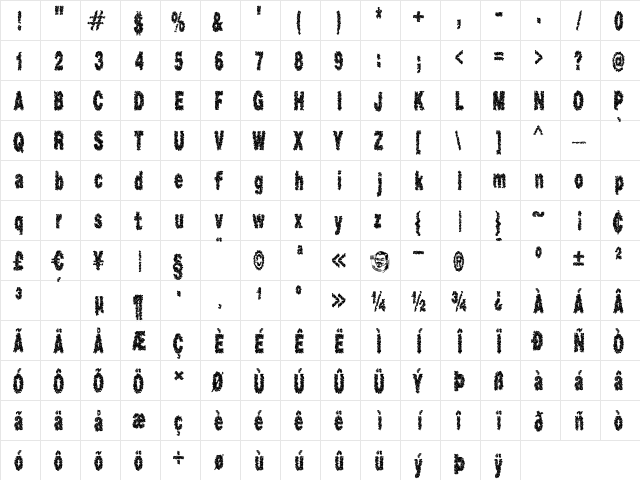
CaviarRancid Regular Font Preview
CaviarRancid Regular
Design Context for CaviarRancid Typeface
CaviarRancid is a composed and adaptable typeface that performs quietly and consistently across a wide range of design contexts.